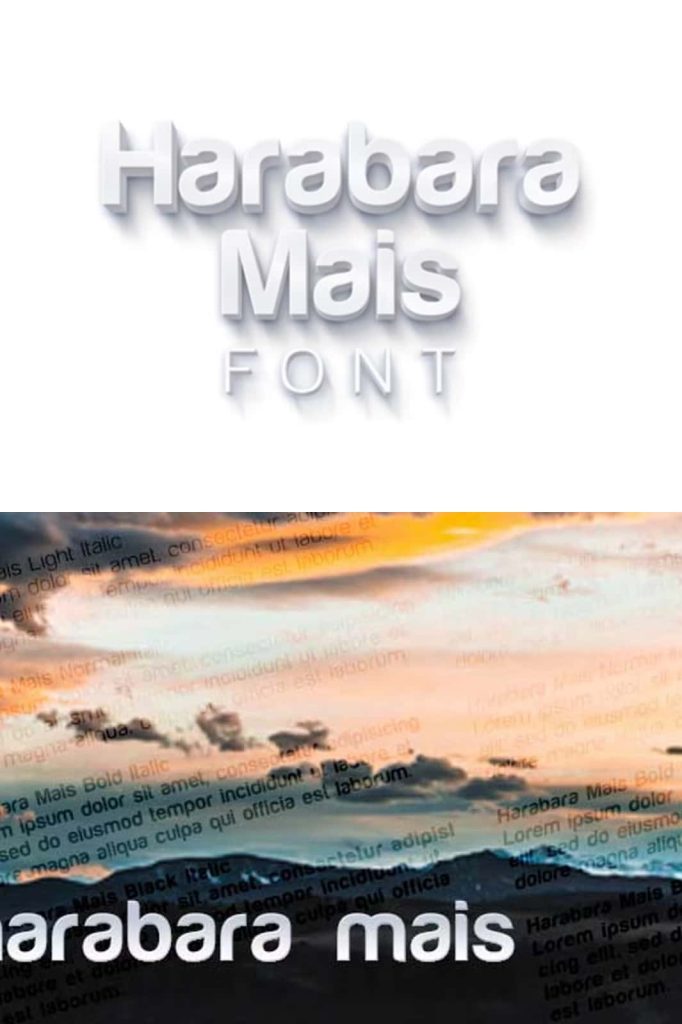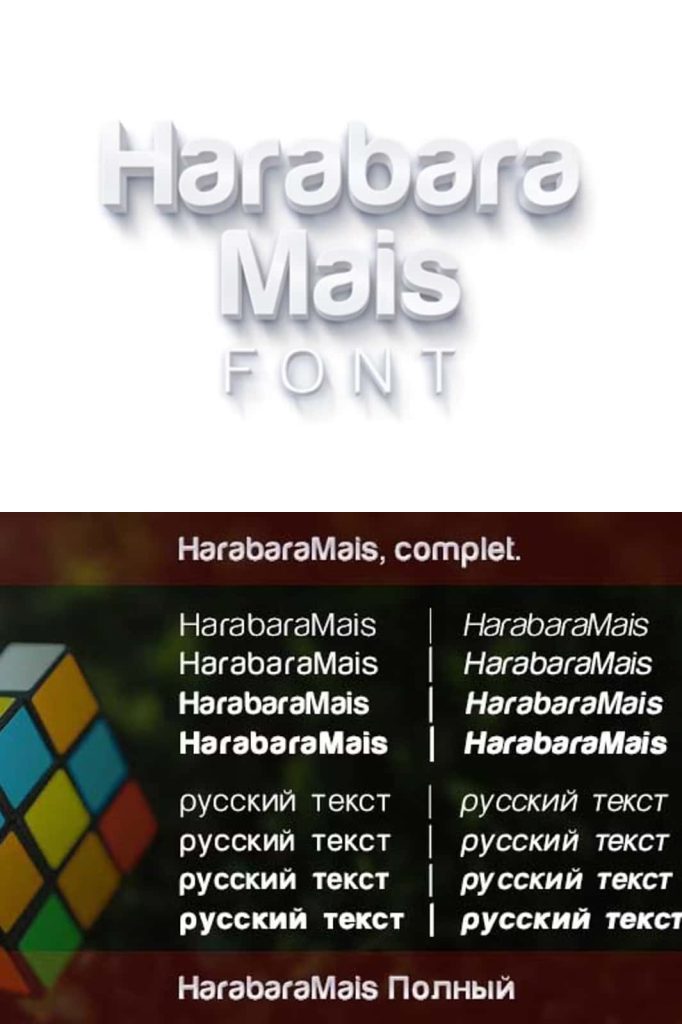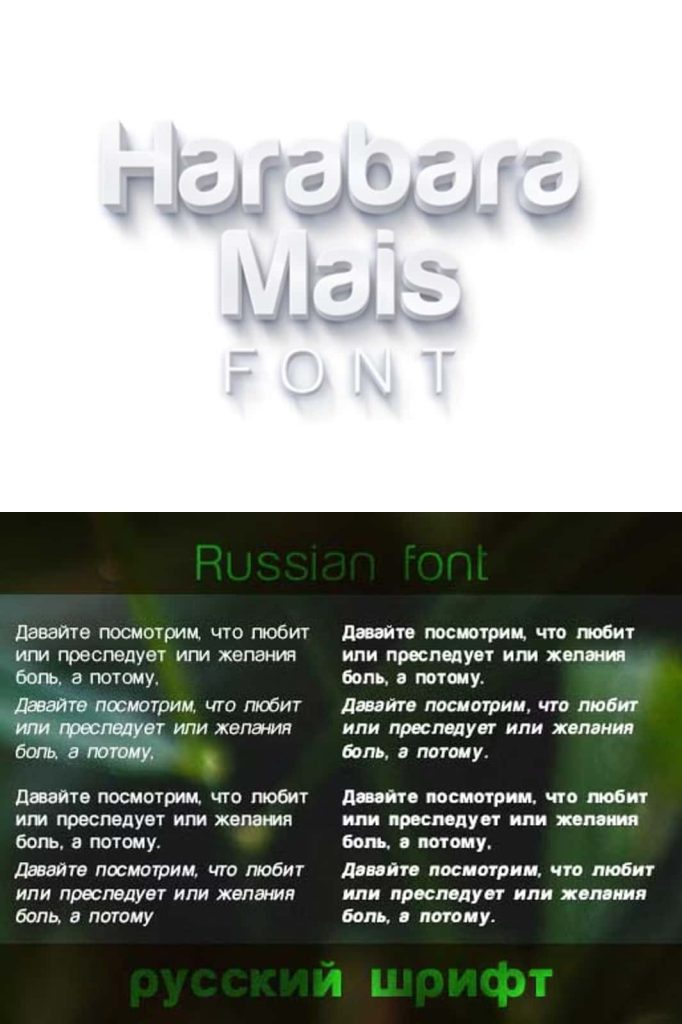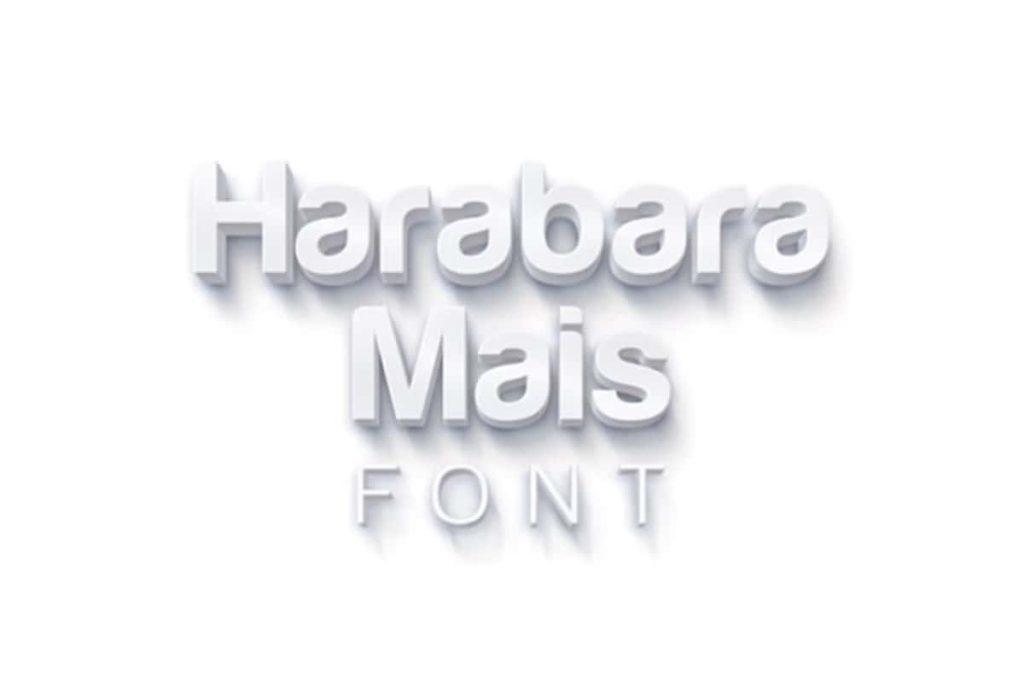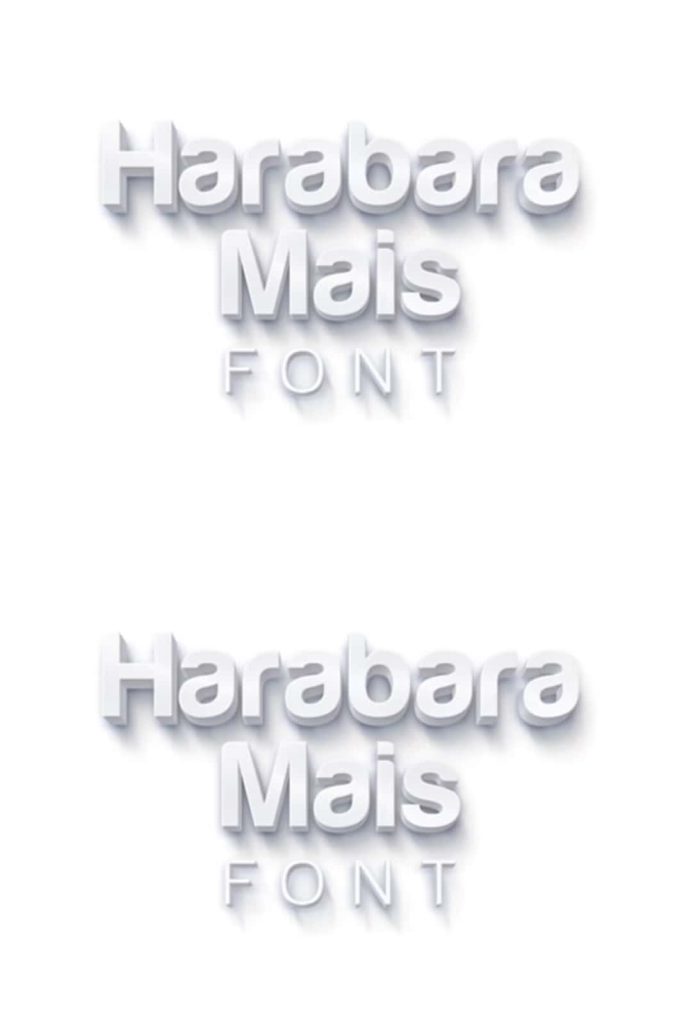
Harabara Mais Font Family: A Refined Evolution of a Classic Typeface
Harabara Mais is a modern font family that builds upon the foundation of the original Harabara typeface. First introduced in 2009, the initial Harabara font gained attention for its bold presence and distinctive style. However, it featured only a single weight and included several imperfections that limited its flexibility. Recognizing the potential of the design, the creator revisited the concept and developed Harabara Mais in 2013 as a more complete and refined version.
This updated font family transforms the original idea into a versatile and professional tool for designers. By correcting earlier inconsistencies and expanding the range of styles, Harabara Mais delivers improved usability while maintaining the unique character that made the original font appealing. It offers a balanced combination of structure, clarity, and stylistic expression that suits a wide variety of creative projects.
From a Single Bold Style to a Complete Typeface Family
The original Harabara font was known for its bold weight, which gave it a strong and confident visual presence. While this made it effective for certain applications, it limited its use in more complex design systems. Harabara Mais addresses this limitation by introducing a full family of weights and styles, allowing designers to create more dynamic and cohesive compositions.
The expanded family includes light, light italic, normal, normal italic, bold, bold italic, black, and black italic. This wide range enables designers to establish clear visual hierarchies and maintain consistency across different elements of a project. Whether working on digital interfaces, print materials, or branding systems, Harabara Mais provides the flexibility needed to achieve professional results.
Improved Design and Refined Details
One of the key goals behind Harabara Mais was to correct the imperfections present in the original version. The updated typeface features cleaner lines, more consistent spacing, and improved proportions. These refinements enhance readability and ensure that the font performs well across various sizes and contexts.
The smoother curves and balanced letterforms give Harabara Mais a polished and modern appearance. While it retains the bold personality of the original, it introduces a level of precision that makes it suitable for more demanding design applications. This combination of character and refinement allows the font to stand out without sacrificing functionality.
Versatility Across Different Design Needs
Harabara Mais adapts easily to a wide range of creative uses. In branding, it helps establish a strong and recognizable identity through its clean yet expressive style. Designers can use different weights to create contrast and emphasize key elements, ensuring that the brand message remains clear and impactful.
For editorial design, the font offers excellent readability and structure. The availability of multiple weights and italics allows for effective text organization, making it suitable for headlines, subheadings, and body text. This versatility ensures that content remains engaging and visually appealing.
In digital design, Harabara Mais performs reliably across screens of different sizes. Its clarity and consistency make it a practical choice for websites, applications, and user interfaces. Designers can use the font to create layouts that feel modern, organized, and easy to navigate.
A Typeface Built for Creative Flexibility
Harabara Mais empowers designers to explore different visual directions without being limited by a single style. The range of weights and italics encourages experimentation, allowing creatives to develop unique compositions that suit their specific needs. This flexibility makes the font a valuable asset for both simple and complex projects.
The typeface also maintains a cohesive identity across all its variations. Despite the differences in weight and style, each version of Harabara Mais feels connected, ensuring that designs remain consistent and professional. This consistency is essential for projects that require a unified visual language.
Why Choose Harabara Mais for Your Projects
Designers choose Harabara Mais because it combines the strengths of its original version with modern improvements. It offers the bold character that made Harabara popular while addressing its limitations through refinement and expansion. This makes it a reliable choice for professionals who need both style and functionality.
By incorporating Harabara Mais into your work, you gain access to a versatile font family that supports creativity and precision. It enhances visual communication, strengthens design structure, and helps create impactful results across different mediums. With its refined design and expanded capabilities, Harabara Mais stands as a strong example of how a classic concept can evolve into a powerful modern typeface.